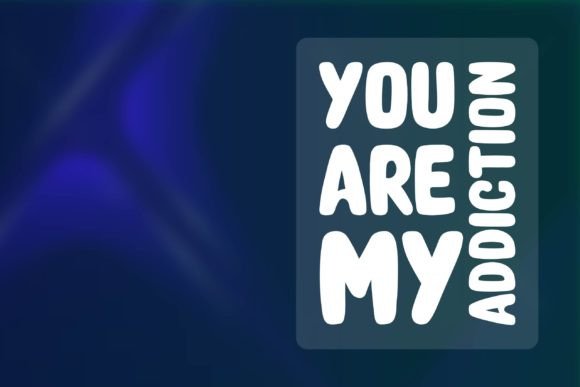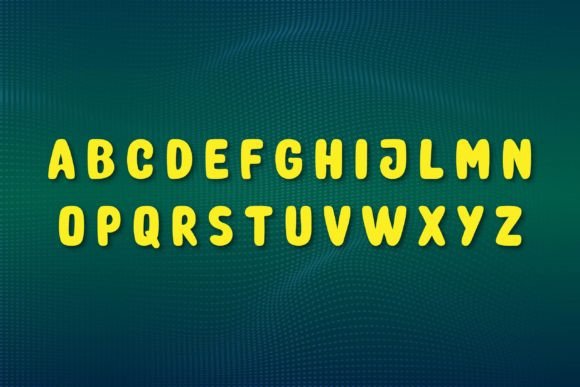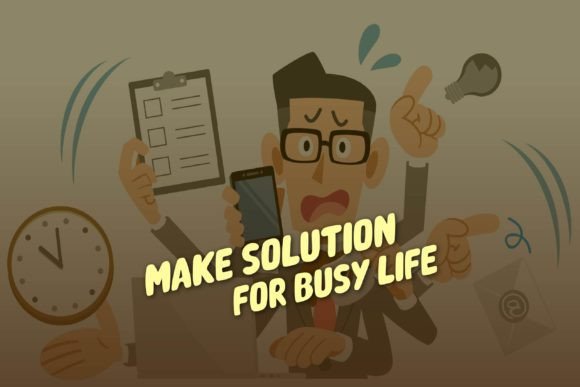
The Quest for the Perfect Font: Discovering Gpple
I still remember the frustration of scrolling through font after font, searching for the perfect one to bring my design project to life. It was for a children’s cartoon series, and I needed something that was both playful and sophisticated. The client wanted a font that would captivate their young audience, and I was determined to deliver. That’s when I stumbled upon Gpple, a Gothic-crafted stylish font that radiates Cartoon Quality.
A First Impression: What Makes Gpple Special
Gpple immediately caught my attention with its unique charm. This font is perfect for movie titles, cartoon names, game titles, and t-shirt designs. What sets it apart is its distinctive absence of lowercase letters, which adds a playful yet sophisticated touch to any project. Its versatility and charm make it an ideal choice for those looking to enhance their designs with a creative and whimsical flair.
An Honest Review: The Good and the Quirks
What I Love About Gpple
- ✨ Unique Gothic-Cartoon Style: Gpple’s design is unlike any other font I’ve come across. It perfectly blends Gothic elements with a cartoonish vibe, making it stand out in any design.
- ✅ High Versatility: Whether it’s for a movie title, a game, or a t-shirt design, Gpple fits in seamlessly, adding a touch of whimsy and sophistication.
- 🎨 Easy to Pair with Other Fonts: Despite its unique style, Gpple pairs well with a variety of fonts, making it easy to find complementary fonts for your design.
⚠️ One thing to note about Gpple is its lack of lowercase letters. While this is a defining feature of the font, it can limit its use in certain projects that require a full range of case letters. Additionally, due to its stylized nature, it may not be the best choice for body text or more formal designs.
🤔 Another quirk is that Gpple might require a bit of experimentation to get the spacing and sizing just right, especially when used in combination with other fonts.
The Story Behind Gpple: Designer Inspiration
Gpple was inspired by the classic Gothic fonts of the past, but with a modern twist. The designer wanted to create a font that was both nostalgic and fresh, perfect for modern designs that need a touch of whimsy. The result is a font that’s both playful and sophisticated, with a unique charm that sets it apart from other fonts.
Q: Is Gpple suitable for body text?
A: Due to its stylized nature and lack of lowercase letters, Gpple is best used for titles, headings, and short text snippets rather than body text.
Q: Does Gpple support OpenType features?
A: Yes, Gpple supports OpenType features, including glyphs and stylistic alternates. This allows for a high level of customization and flexibility in your designs.